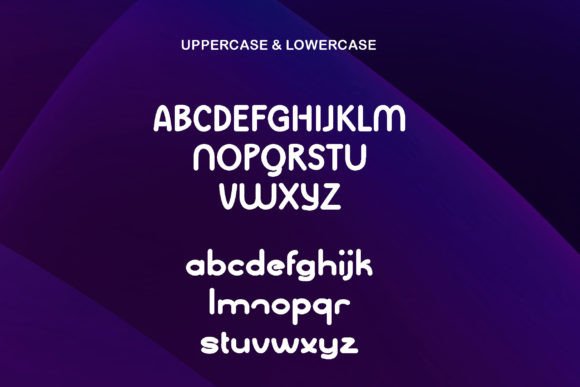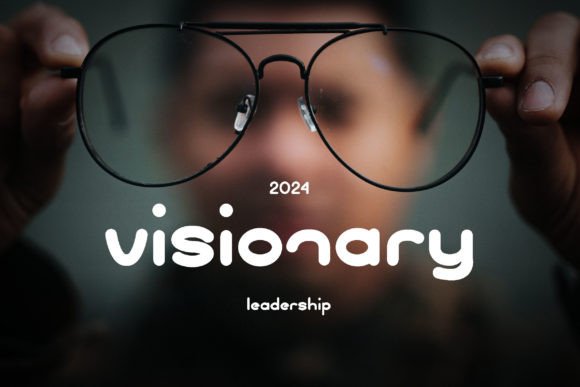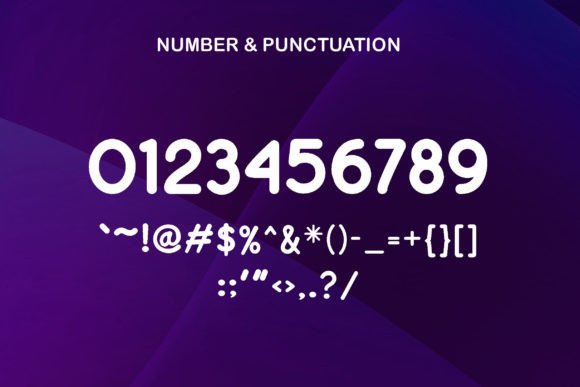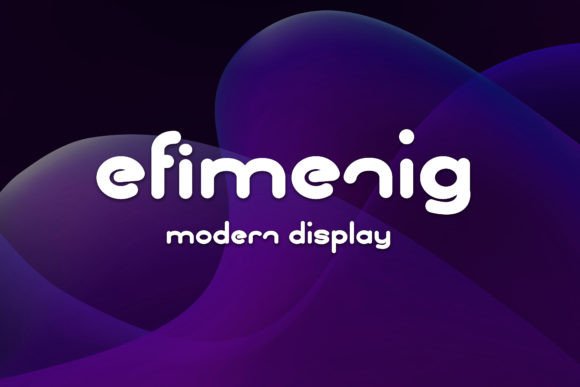
Discover the Unique Style of Efimenig Font: Elevate Your Designs with Modern Flair
In the vast world of typography, finding a font that stands out from the crowd can be a daunting task. However, if you’re on the lookout for a font that exudes modernity and originality, look no further than the Efimenig Font. This distinctive typeface is making waves in the design community, and for good reason. With its unique style that includes both uppercase and lowercase letters, Efimenig Font is versatile enough to be used for a wide range of purposes, especially when it comes to crafting modern themes.
What Makes Efimenig Font So Special?
Efimenig Font boasts a design that is both fresh and captivating. Its uniqueness lies in its ability to blend simplicity with elegance, making it an excellent choice for designers and crafters looking to add a touch of sophistication to their projects. Whether you’re working on a website, a branding campaign, or a craft project, this font is sure to make your work stand out.
Key Features of Efimenig Font
• Unique and Original Style: Efimenig Font offers a design that is unlike any other. Its original style ensures that your projects will have a distinctive look that captures attention.
• Uppercase and Lowercase Letters: The inclusion of both uppercase and lowercase letters makes this font highly versatile and suitable for a variety of applications.
• Suitable for Modern Themes: If you’re aiming for a modern and contemporary look, Efimenig Font is an excellent choice. It’s perfect for themes that require a sleek and stylish typeface.
• Versatility: From digital projects like websites and mobile apps to print materials such as brochures and posters, Efimenig Font can be used across a wide range of mediums.
How to Use Efimenig Font in Your Projects
• Pair it with Other Fonts: Efimenig Font works well when paired with other fonts, especially those with a more traditional or serif design. This contrast can create visually appealing and dynamic layouts.
• Experiment with Sizes and Weights: Don’t be afraid to experiment with different sizes and weights of Efimenig Font. This can help create hierarchy and emphasis in your designs.
• Consider Your Audience: As with any design choice, consider your audience and the context in which your project will be viewed. Efimenig Font’s modern style is likely to appeal to a wide audience, but it’s essential to ensure it aligns with your project’s overall tone and message.
Why Designers and Crafters Love Efimenig Font
Efimenig Font has quickly become a favorite among designers and crafters for several reasons:
• Time-Saving: With its comprehensive set of characters, designers can save time and focus on other creative aspects of their projects.
• Professional Look: The font’s modern and clean design gives projects a professional look that’s hard to achieve with more generic typefaces.
Font Name Efimenig Font
Efimenig Font is a game-changer for anyone looking to elevate their designs with a modern and unique typeface. Its original style, versatility, and suitability for a wide range of projects make it an invaluable tool in any designer’s or crafter’s arsenal. Whether you’re working on a personal project or a client’s, Efimenig Font is sure to help you create something truly special. So why wait? Explore the possibilities of Efimenig Font today and discover a new world of typographic possibilities.